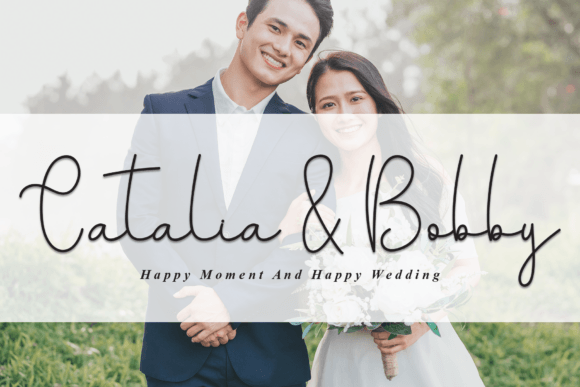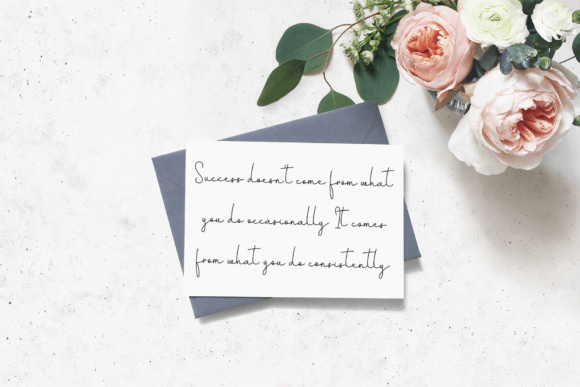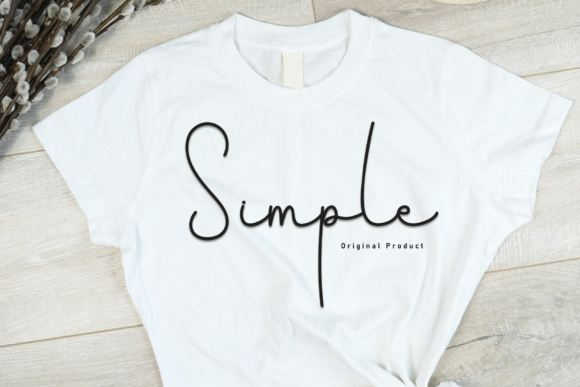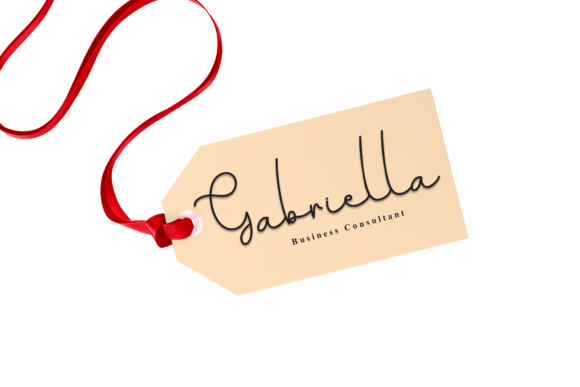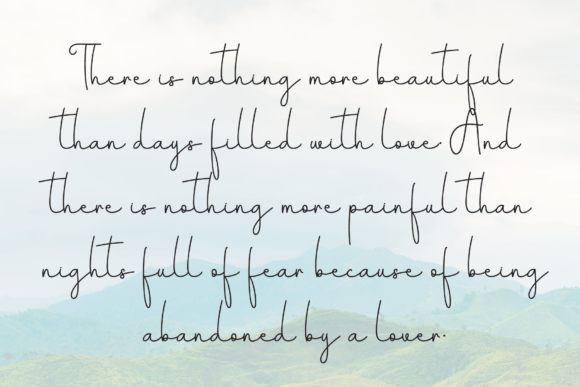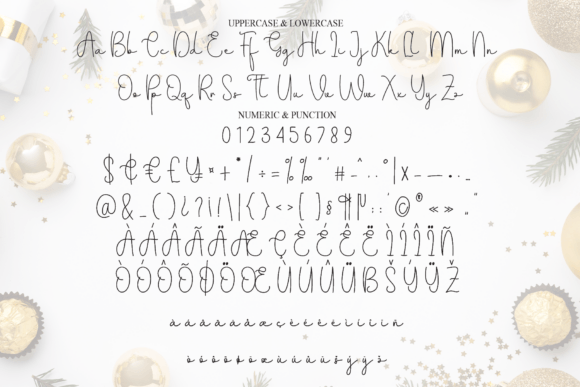
Unleash the Magic of Elegant Christmas Font
There’s something special about curling up with a warm cup of hot cocoa, surrounded by twinkling lights, and the soft glow of a festive holiday display. It’s the perfect moment to get creative and start brainstorming ideas for your holiday projects. For many of us, this is the time of year when we get to express our love and appreciation for our loved ones through thoughtful gifts, heartfelt messages, and beautifully designed cards.
That’s where Elegant Christmas Font comes in – a charming handwritten display font that captures the essence of sweet authenticity and friendliness. Whether you’re a professional designer or a DIY enthusiast, this font is your go-to choice for crafting messages that resonate with joy and warmth. Its playful and whimsical style makes it perfect for wedding invitations, greeting cards, and any design that needs a splash of elegance.
Elegant Christmas Font Key Features
- Font Style: Elegant, cursive, and decorative font, perfect for festive designs and winter-themed projects.
- Unique Characteristics: Features intricate ornaments, swashes, and flourishes, adding a touch of elegance to your designs.
Elegant Christmas Font Review
I recently had the chance to work with the Elegant Christmas Font, and I must say it’s a lovely addition to any holiday design project. ✨ The font is designed to evoke a sense of luxury and sophistication, perfect for high-end brands or special occasions.
Here are some things that worked well:
- ✨ Elegant and refined aesthetic, perfect for creating a sense of luxury and sophistication.
- ✨ Wide range of characters and glyphs, including ornaments and decorations.
- ✨ Works well in both digital and print applications.
- ⚠️ Limited font sizes and weights, which may not be suitable for all design projects.
- ⚠️ Some characters and glyphs may not be as refined or detailed as others.
- ⚠️ May not be suitable for projects that require a more casual or playful tone.
Overall, I would give the Elegant Christmas Font 4 out of 5 stars. While it has some limitations, it’s a beautiful and elegant font that’s perfect for high-end holiday designs. With a bit more development, I think it could be truly exceptional.
For optimal results, pair the Elegant Christmas Font with bold, festive graphics and bright colors.
- Christmas card designs
- Holiday party invitations
- Winter-themed social media graphics